Draw Your Own Fonts: 30 Alphabets to Scribble, Sketch and Make Your Own
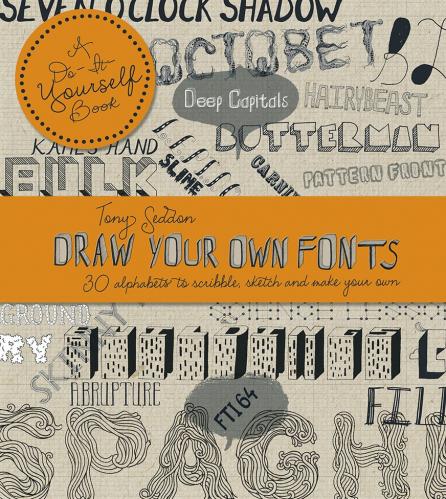
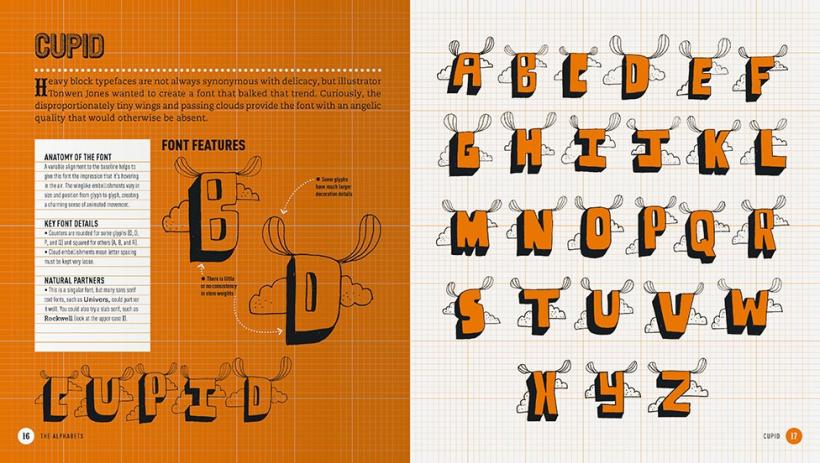
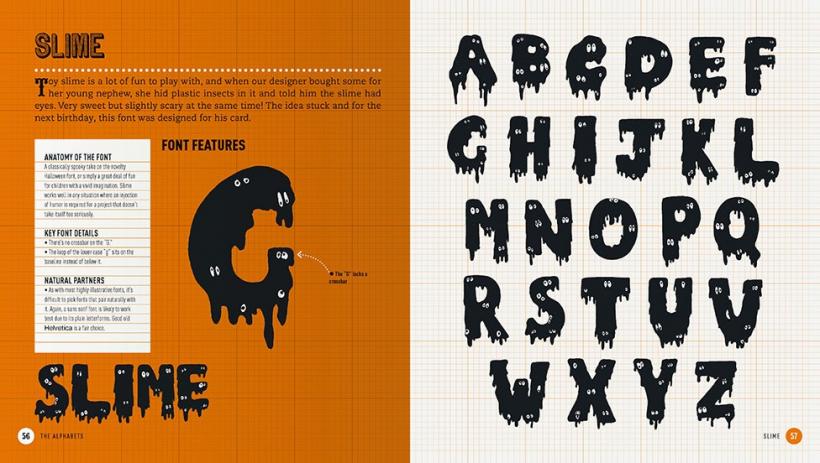
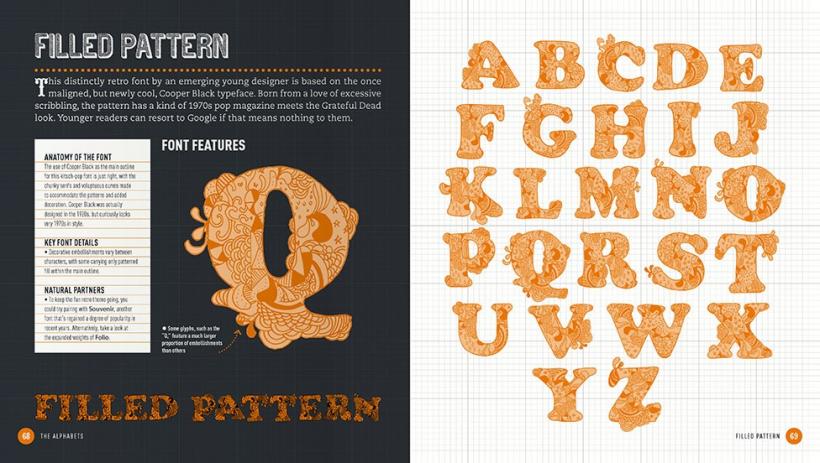
Hand-drawn lettering has never been more popular, and every home designer is in on the act, creating energetic, quirky fonts that seem to jump off the screen, the poster or the page. To the uninitiated this free design can seem a little intimidating can anyone join in? Can you learn to draw appealing letters without a graphics course?
Draw Your Own Fonts proves that the answer is a resounding ‘yes’. A lively mix of inspiration and workbook, it offers 30 complete alphabets, drawn in a variety of styles by an energetic line-up of young artists and illustrators, with tips and demonstrations on how you can copy or adapt them to make them your own. With sections on how to use your fonts online as well as on paper, this is a do-it-yourself book that will appeal to anyone who has ever begun a hand-lettered project (or simply doodled a highly decorated word or two on the cover of a notebook) then wondered why it didn’t have the panache of professional work.